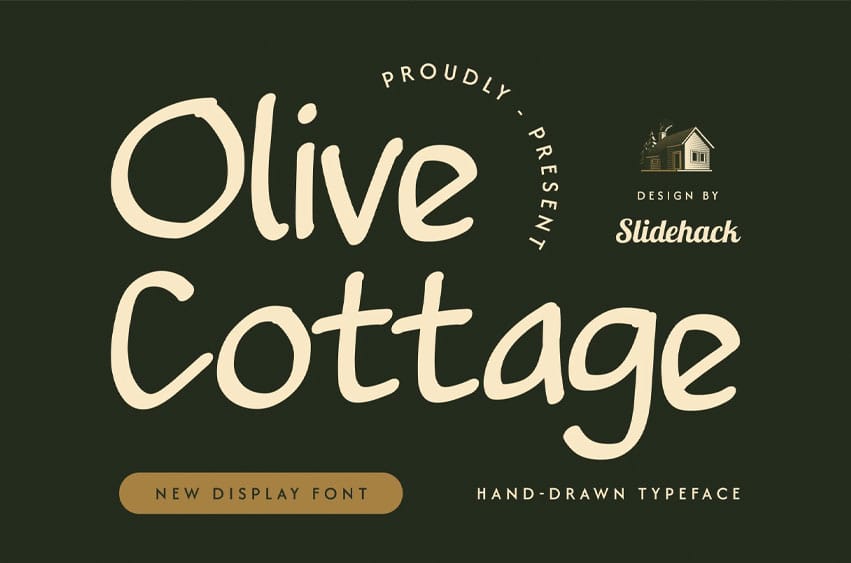
Olive Cottage Font
Olive Cottage Font is a charming handwritten display font with organic strokes and relaxed personality. Inspired by cottagecore, rustic living, and natural aesthetics, it is perfect for branding, packaging, logos, invitations, posters, cafés, wellness products, editorial designs, and social media.
Multilingual characters add versatility to warm, authentic creative projects worldwide.